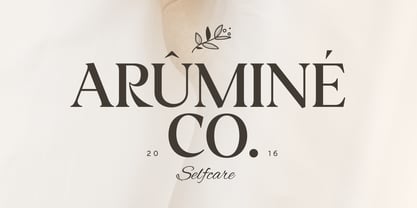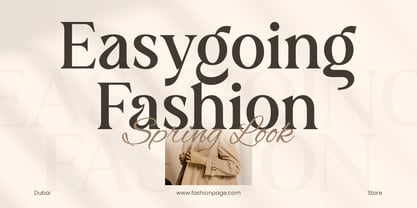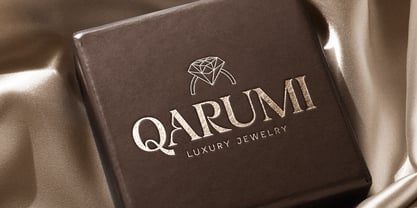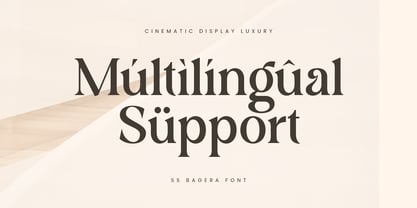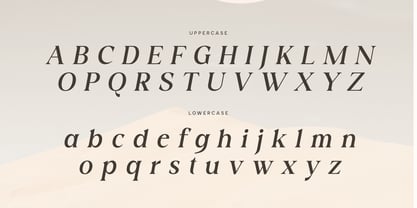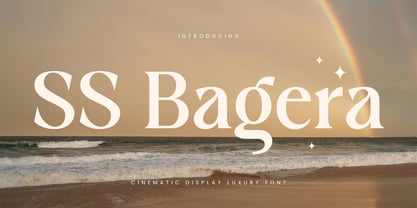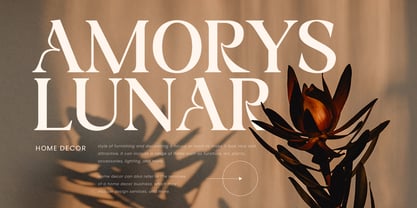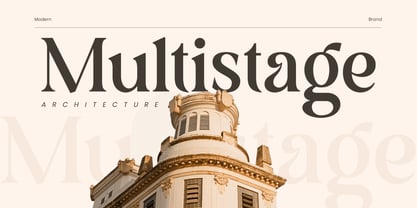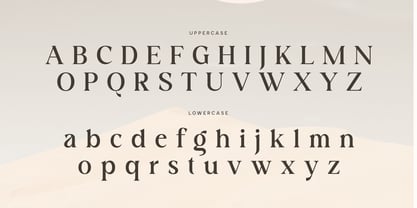
SS Bagera
The SS Bagera Font Family was designed by Zamroni Hamzah and published by Sensatype Studio. SS Bagera contains 2 styles and family package options.
Introducing SS Bagera, a cinematic display font that exudes luxury and sophistication. Perfect for high-end designs and creative projects, SS Bagera combines elegance with a touch of cinematic drama to make your work stand out.
The Story Behind SS Bagera:
SS Bagera was inspired by the glamour and elegance of classic cinema. Imagine the golden age of Hollywood, where every frame was a work of art and every title a masterpiece. This font captures that timeless sophistication, offering a luxurious and stylish look for your designs. SS Bagera is ideal for designers who want to create an aura of elegance and exclusivity in their work.
SS Bagera Font Features:
• Cinematic Design: Inspired by classic cinema, perfect for creating a dramatic impact.
• Luxurious Aesthetic: Combines elegance with a high-end look for sophisticated designs.
• Versatile Usage: Ideal for logos, branding, headlines, posters, and luxury-themed projects.
• High Legibility: Clear and readable, ensuring your message is communicated effectively.
• Elegant Appeal: Perfect for creating an aura of exclusivity and refinement.
Perfect For:
• Luxury Branding: Create elegant and memorable logos for high-end brands and businesses.
• Cinematic Projects: Design eye-catching movie posters, title sequences, and promotional materials.
• High-end Advertising: Develop stylish and sophisticated advertisements and marketing materials.
• Fashion and Lifestyle: Enhance fashion magazines, lookbooks, and lifestyle publications with a touch of glamour.
With SS Bagera, your designs will exude luxury and sophistication. Whether you're working on cinematic projects, luxury branding, or high-end advertising, SS Bagera provides the perfect blend of elegance and dramatic flair. Elevate your design projects with SS Bagera and bring a touch of cinematic luxury to your work.